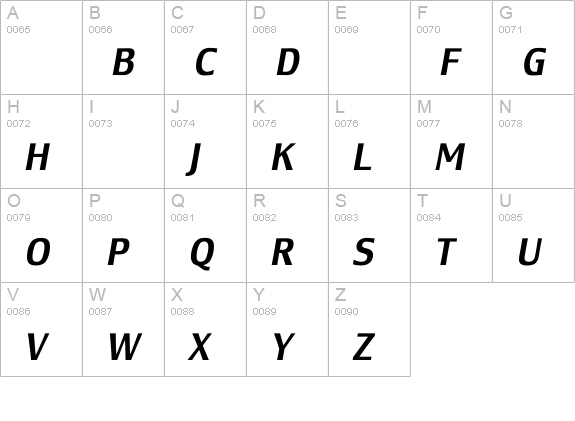
LesmoreMediumCondensedItalic Font Details
LesmoreMediumCondensedItalic is a stylish and elegant font that adds a touch of sophistication to any design project. With its condensed and italicized form, this font is perfect for creating eye-catching headlines, logos, and branding materials. The unique curves and slanted strokes of LesmoreMediumCondensedItalic give it a distinct and modern look, making it a great choice for contemporary designs. It exudes a sense of professionalism and professionalism, making it suitable for a wide range of applications, from advertising and marketing materials to website design and print media. One of the best things about LesmoreMediumCondensedItalic is that it is available for free download at FontsMarket.com. This means that you can easily access and use this beautiful font without any cost. Whether you are a professional graphic designer or someone who just wants to add a touch of elegance to their personal projects, LesmoreMediumCondensedItalic is a fantastic option. The versatility of LesmoreMediumCondensedItalic allows it to be used in various design contexts, from bold and impactful headlines to subtle and elegant body text. Its condensed form makes it ideal for fitting more text into limited spaces, while the italicized style adds a sense of flair and sophistication. No matter what your design needs may be, LesmoreMediumCondensedItalic is sure to elevate your work to a whole new level. Its sleek and modern appearance, combined with its free availability, makes it an excellent choice for designers looking to create stunning and professional-looking designs. So why wait? Visit FontsMarket.com today and download LesmoreMediumCondensedItalic for free to enhance your next design project.